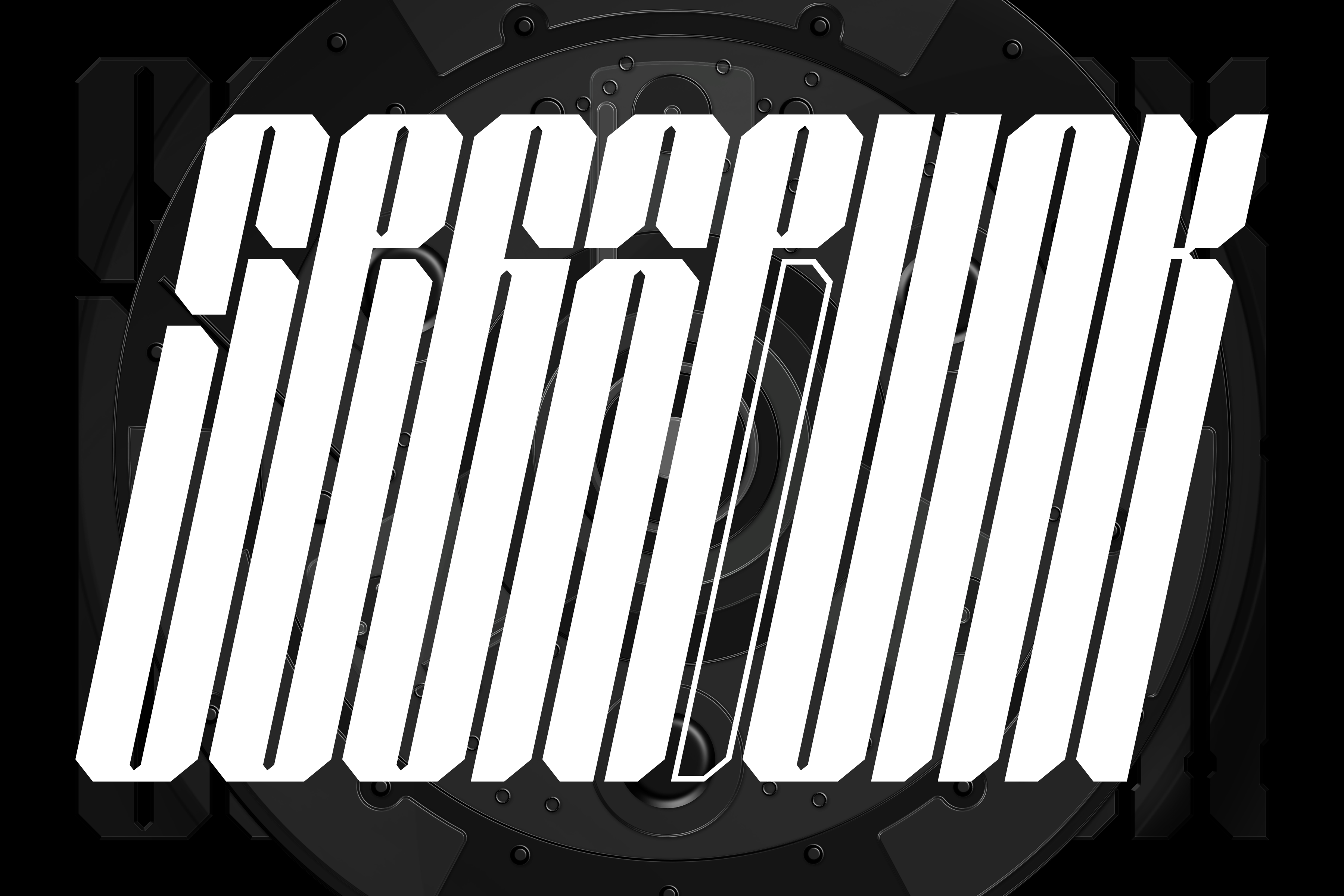
SEGAPUNK BOLD FUTURISTIC TYPEFACE
SEGAPUNK Typeface has a futuristic, modern, bold, tall and strong appearance. Suitable for projects that use a futuristic, unique, and strong impression. Like examples for Apparel, Branding, Websites, and others. Segapunk is available in Regular, Cyborg, Italic, and Stencil Style.